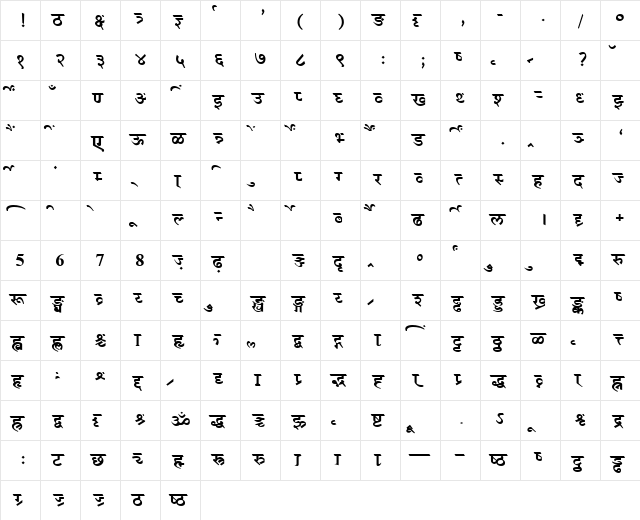
AkrutiDevBhagya Bold
Design Context for AkrutiDevBhagya Typeface
AkrutiDevBhagya is a composed and adaptable typeface that performs quietly and consistently across a wide range of design contexts. Its bold stroke weight gives it real presence on the page.